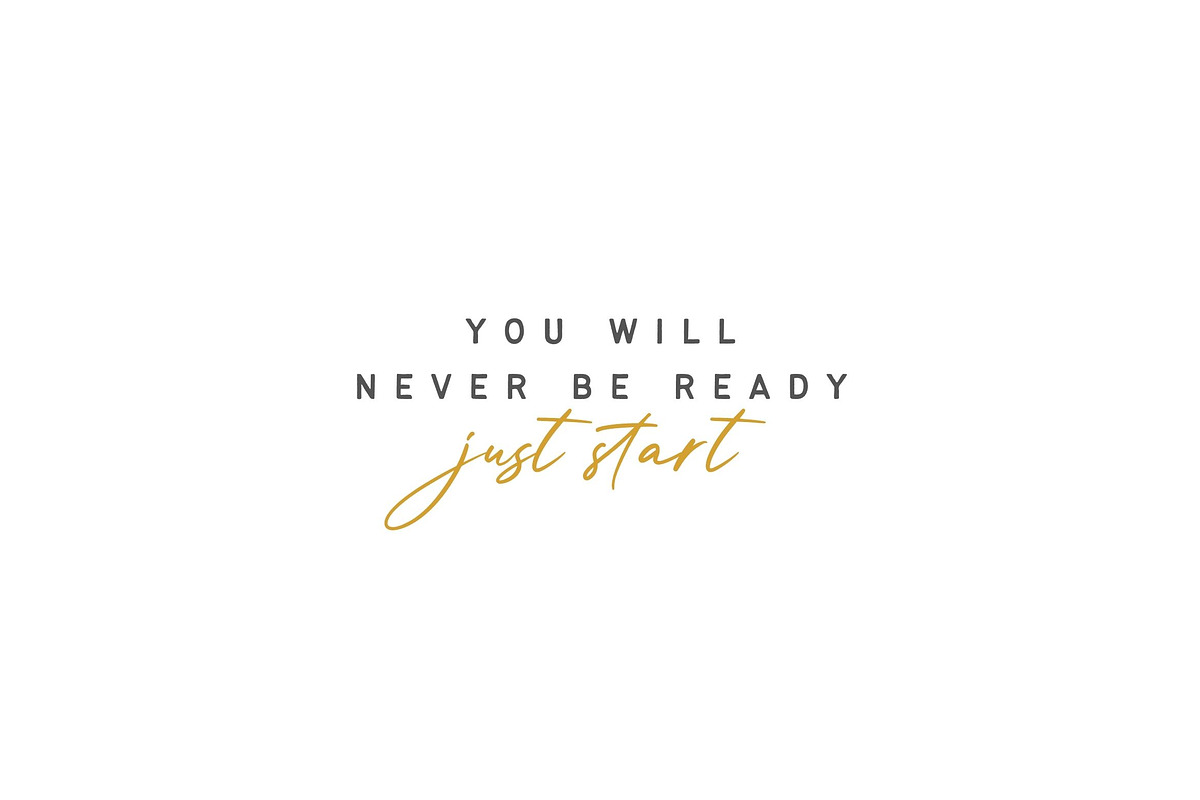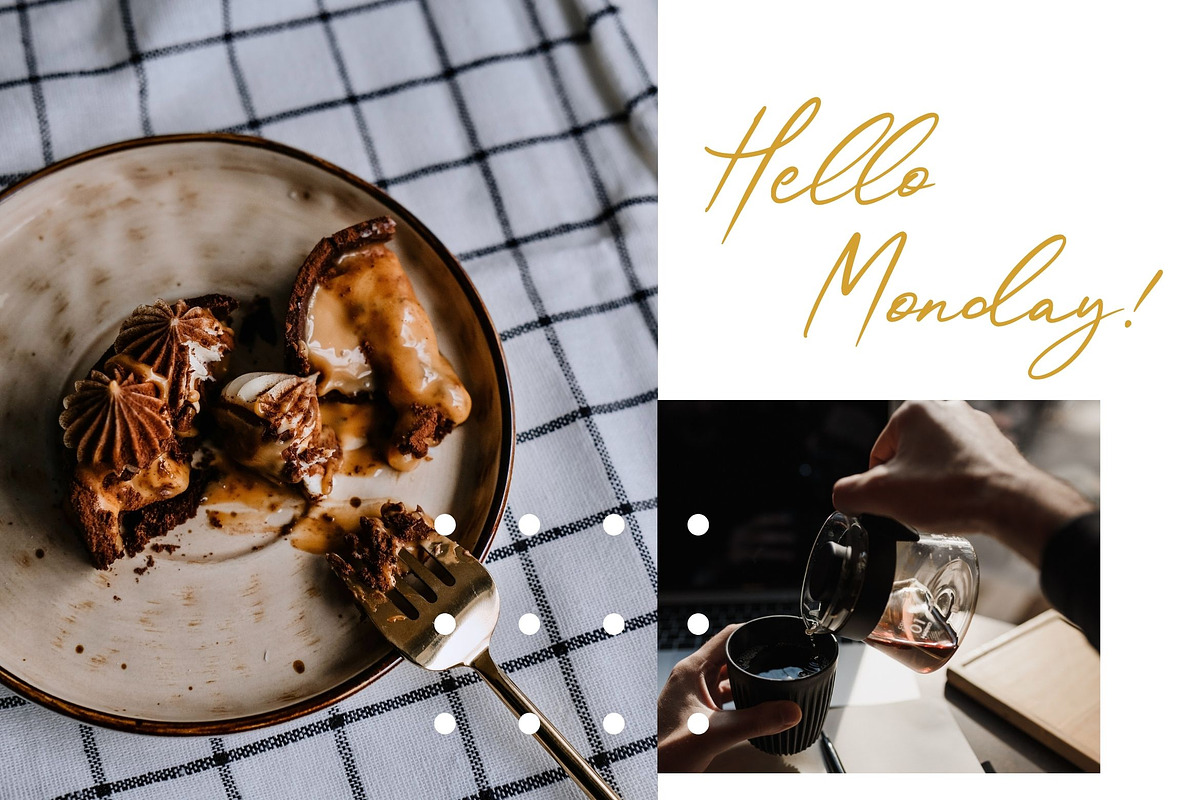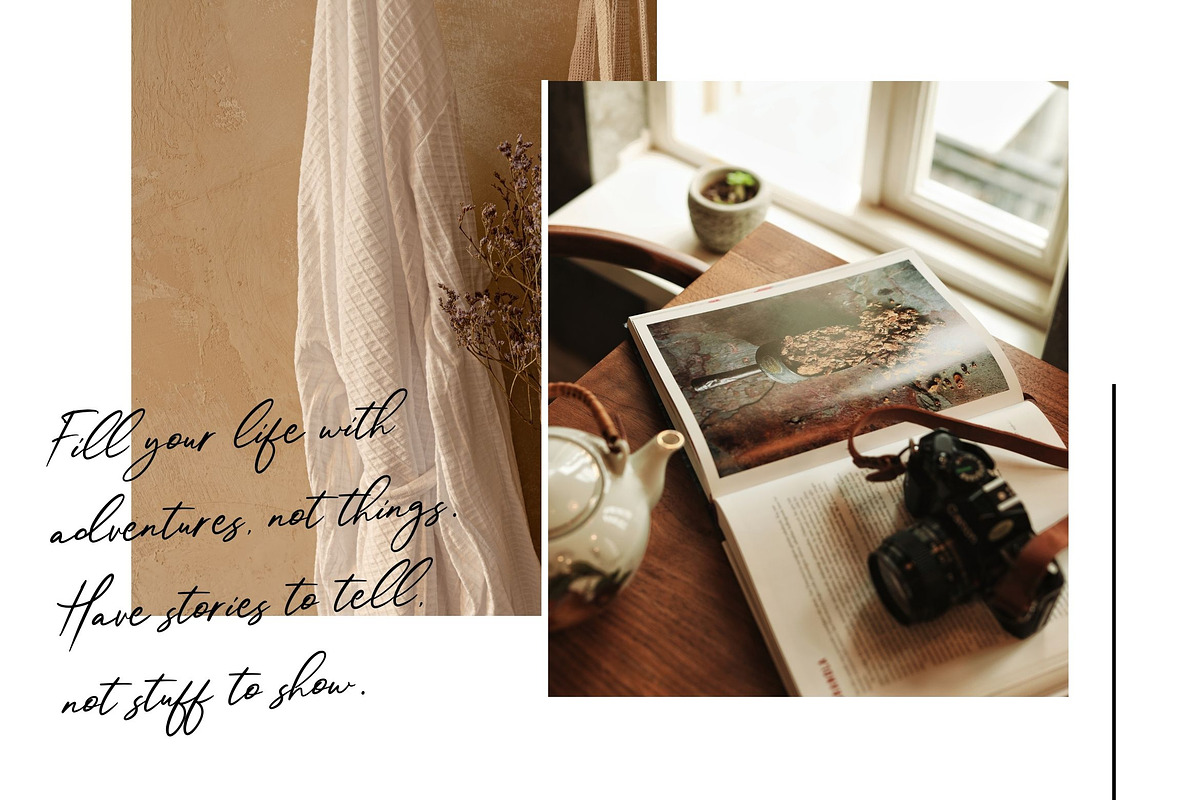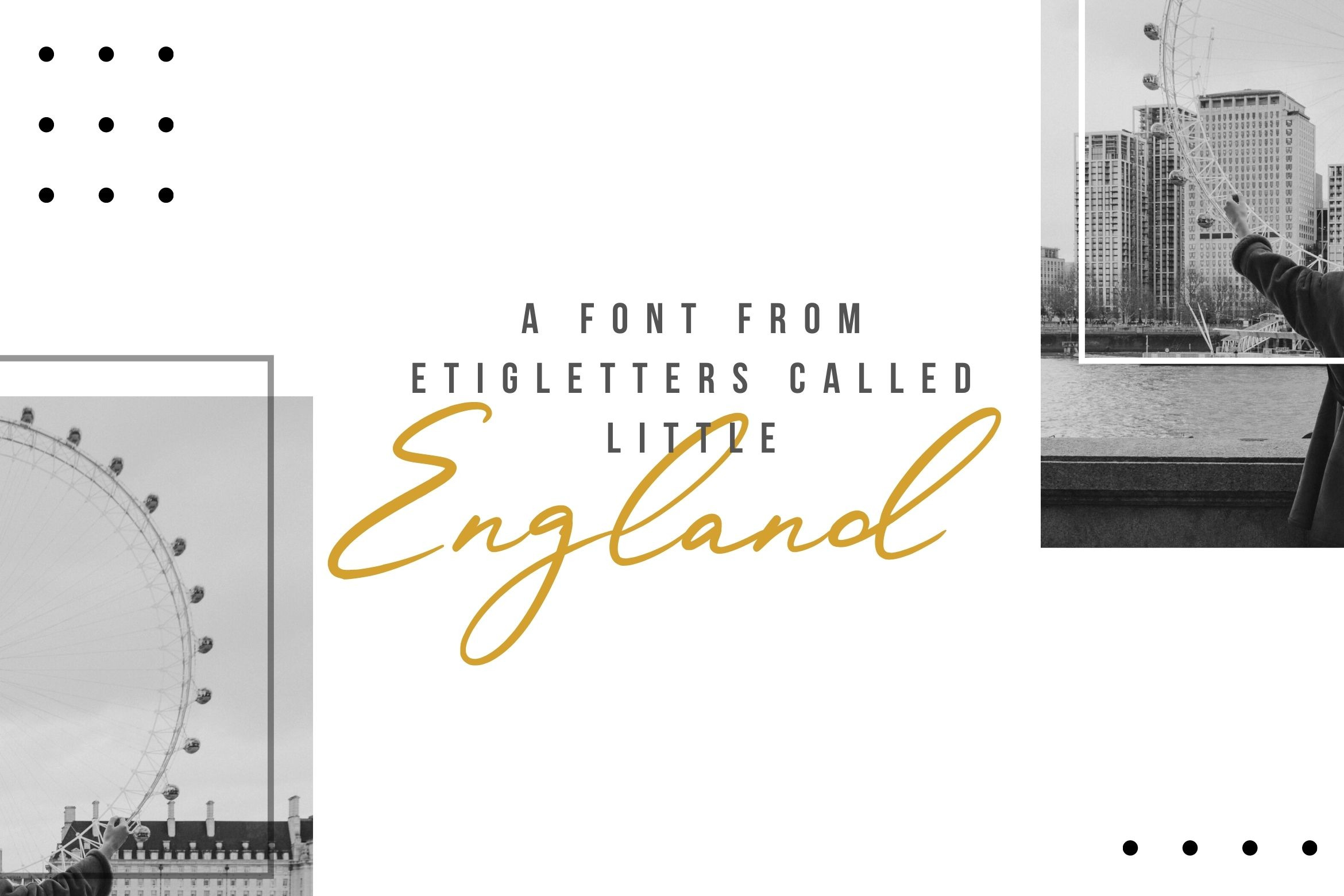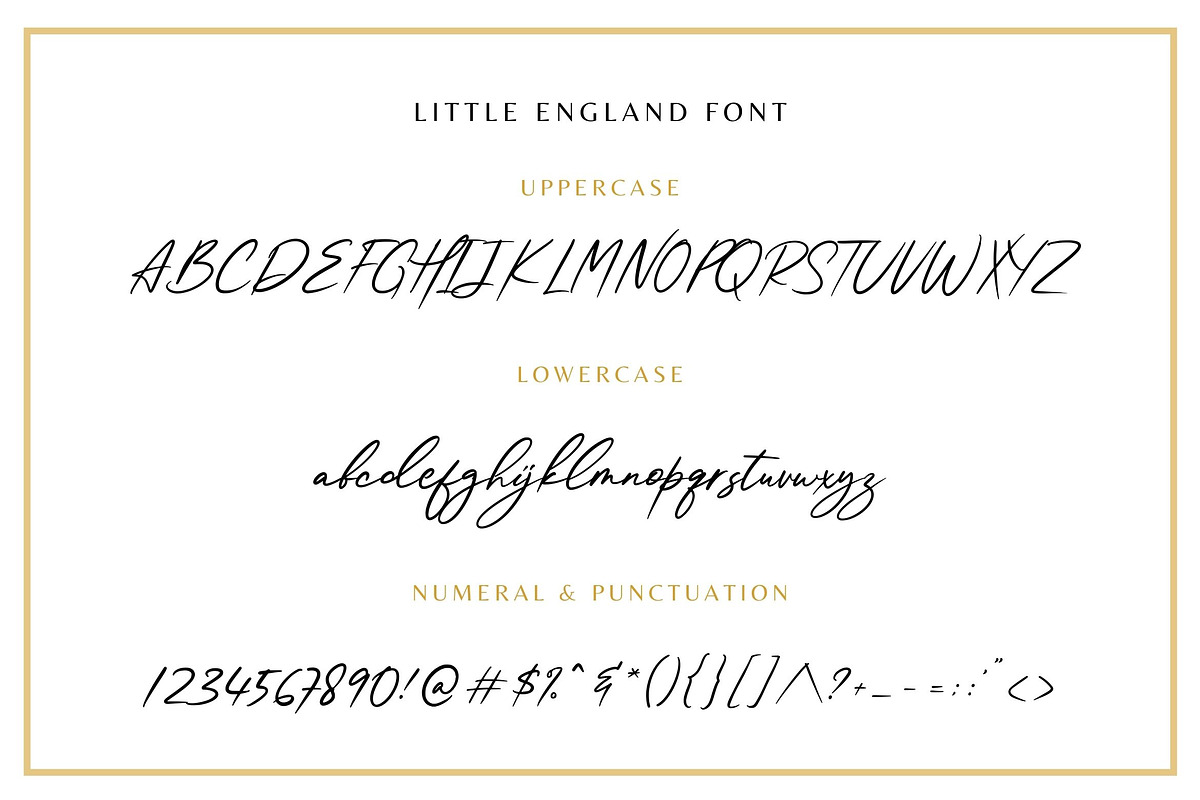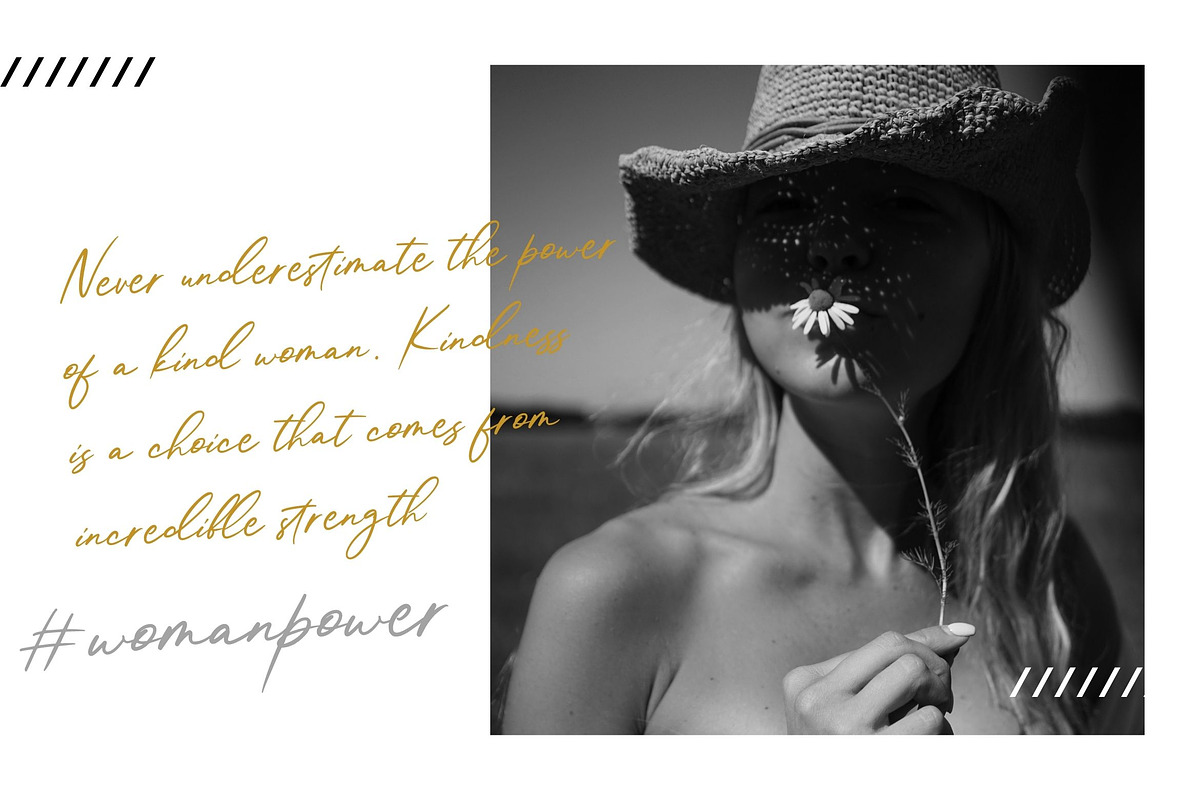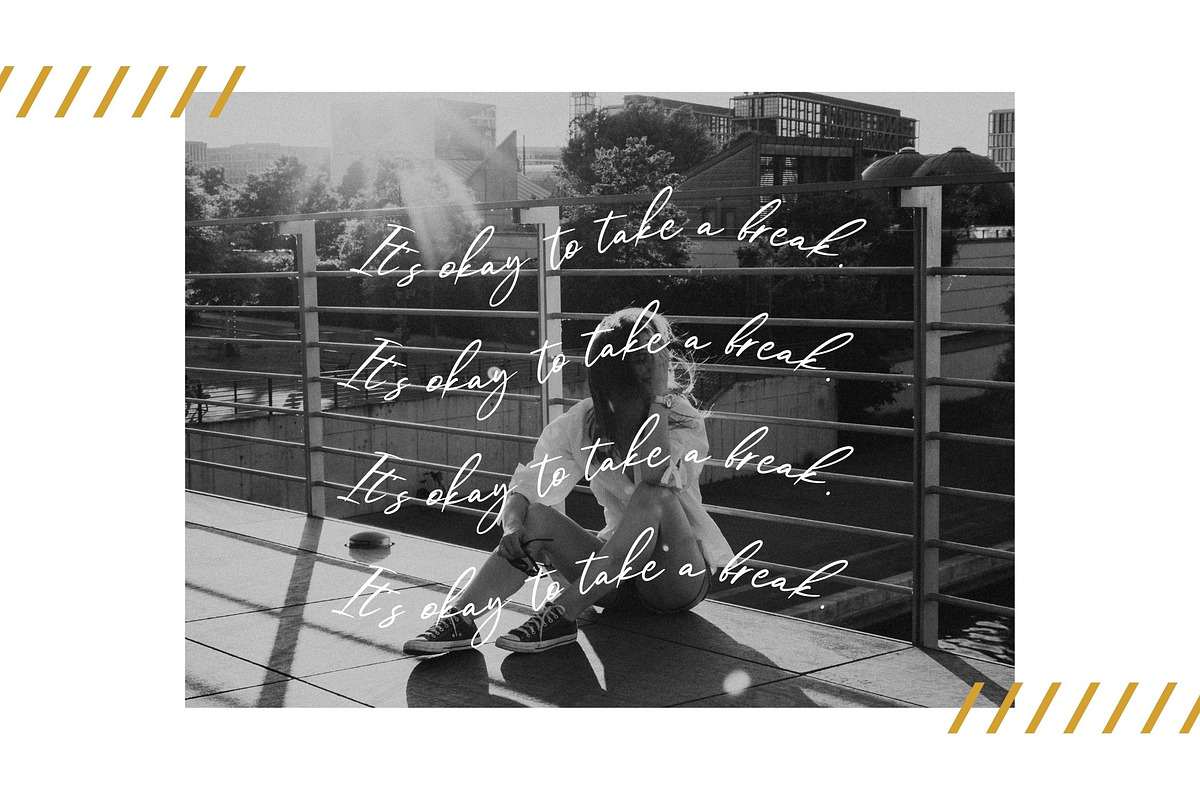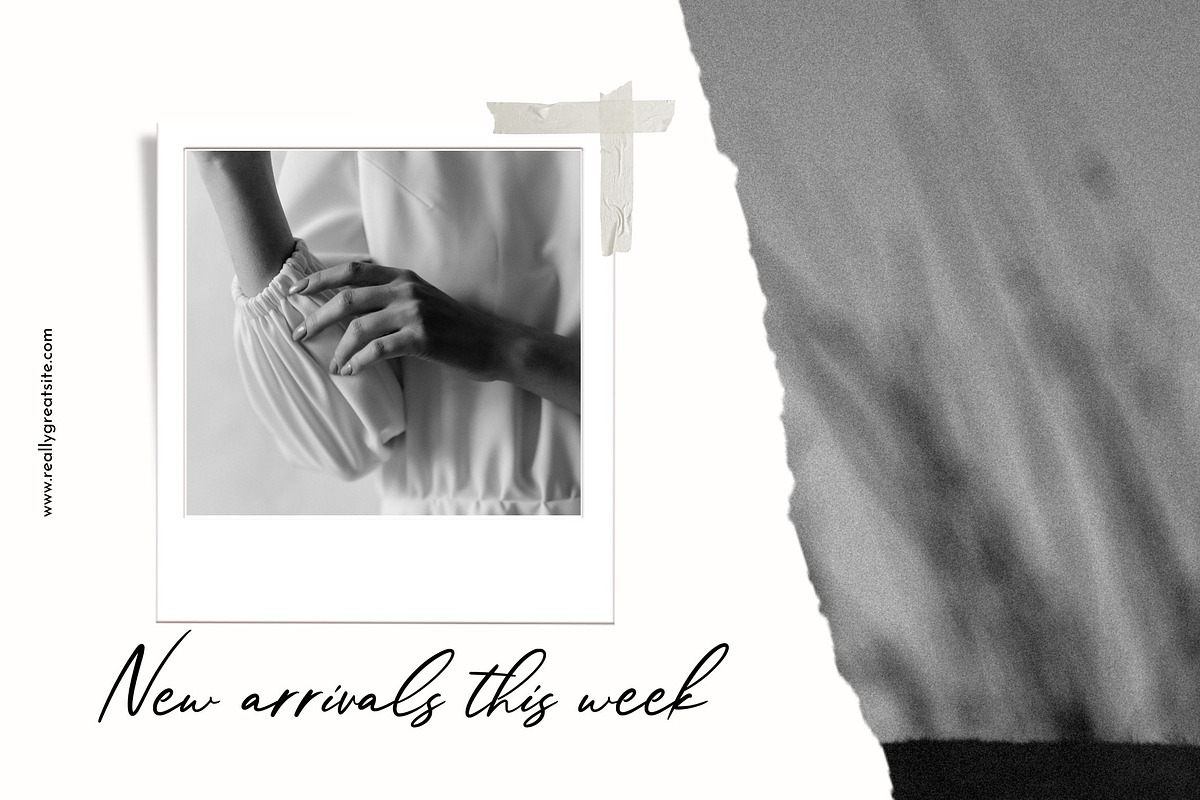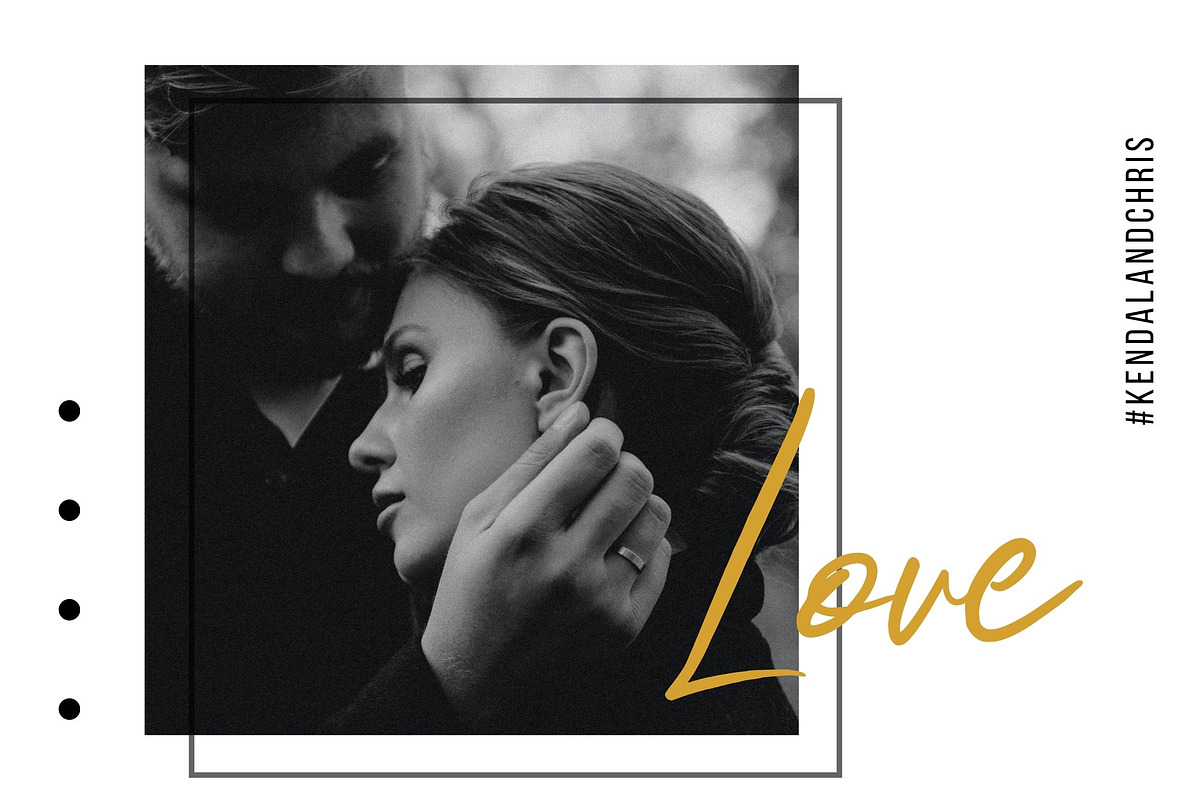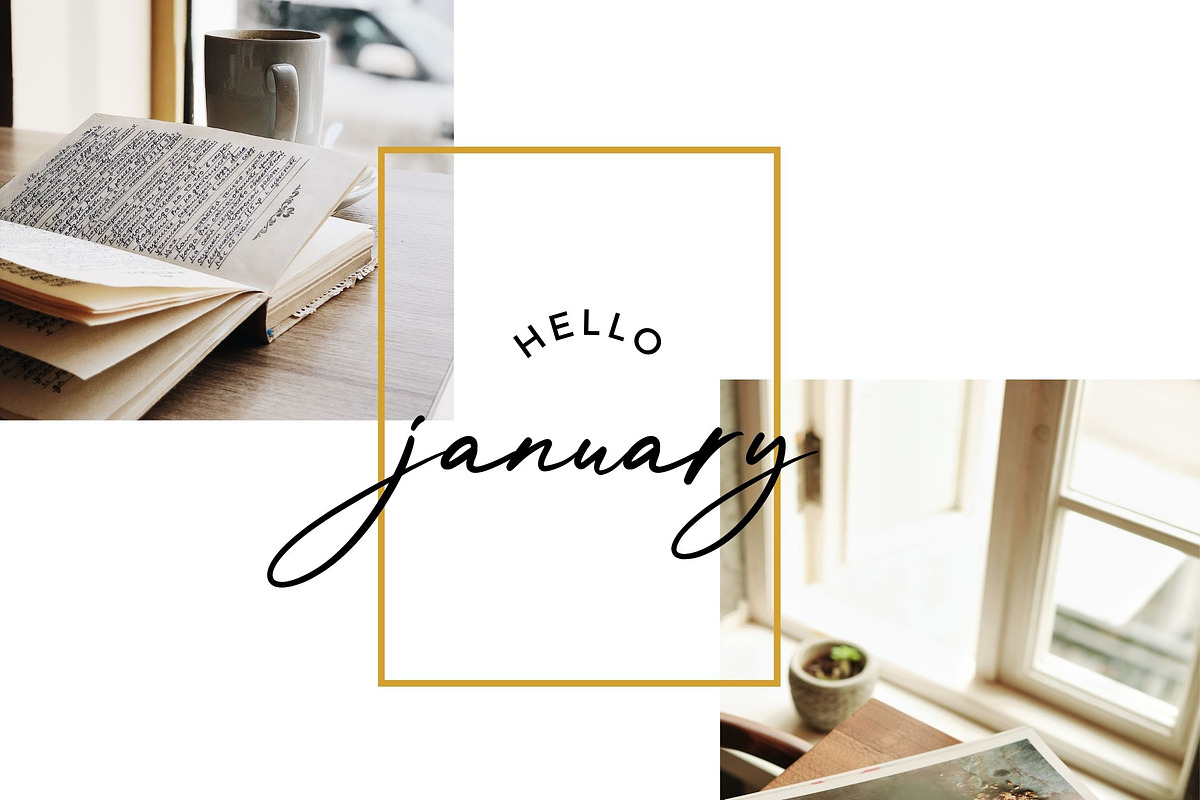
Little England Handwritten Font
Introducing, Little England - a new casual handwritten script with its own unique curves and an elegant inky flow.
Little England - Perfect for adding a elegant and unique touch to your projects and branding. Also already PUA Encoded!